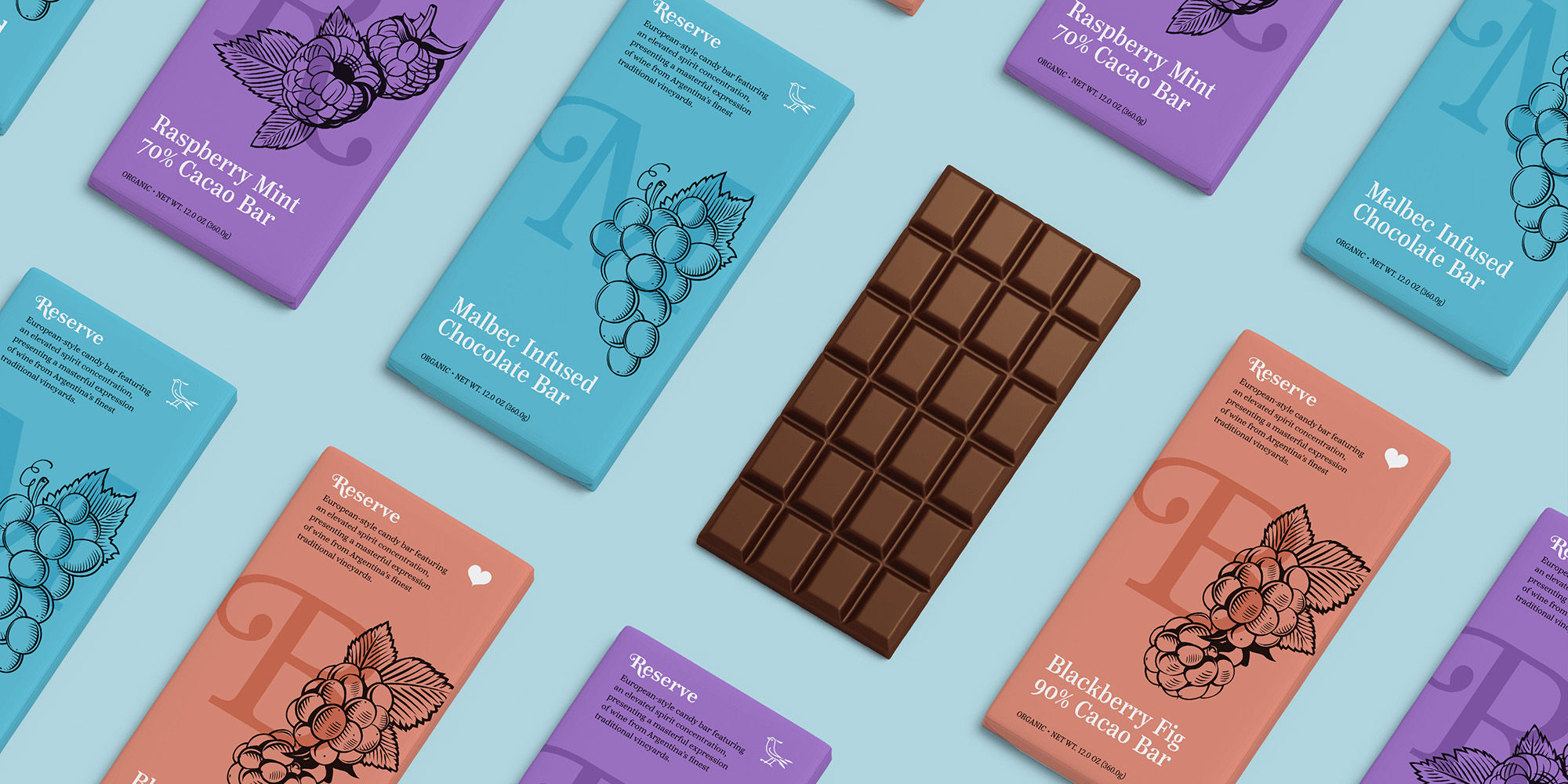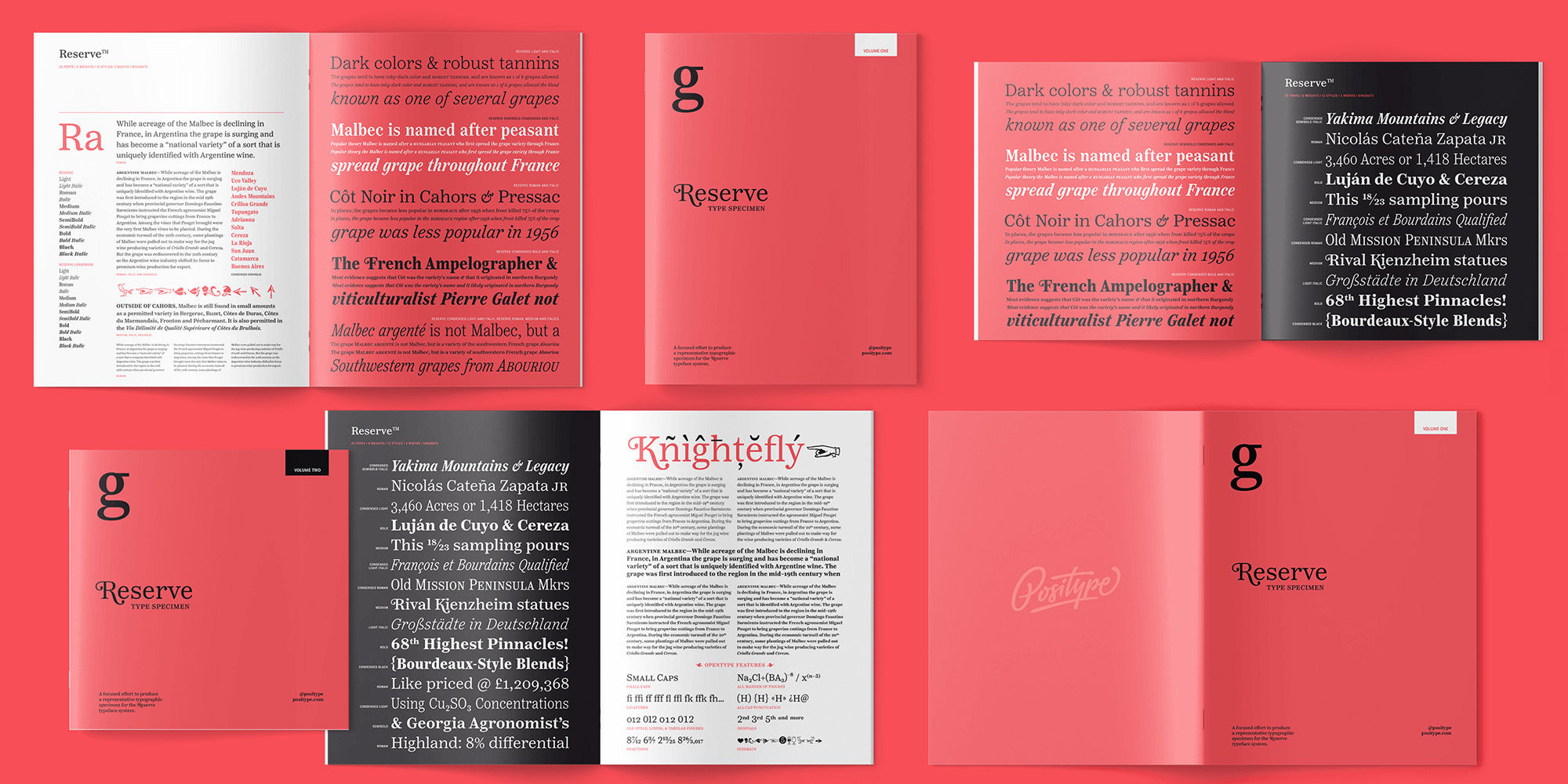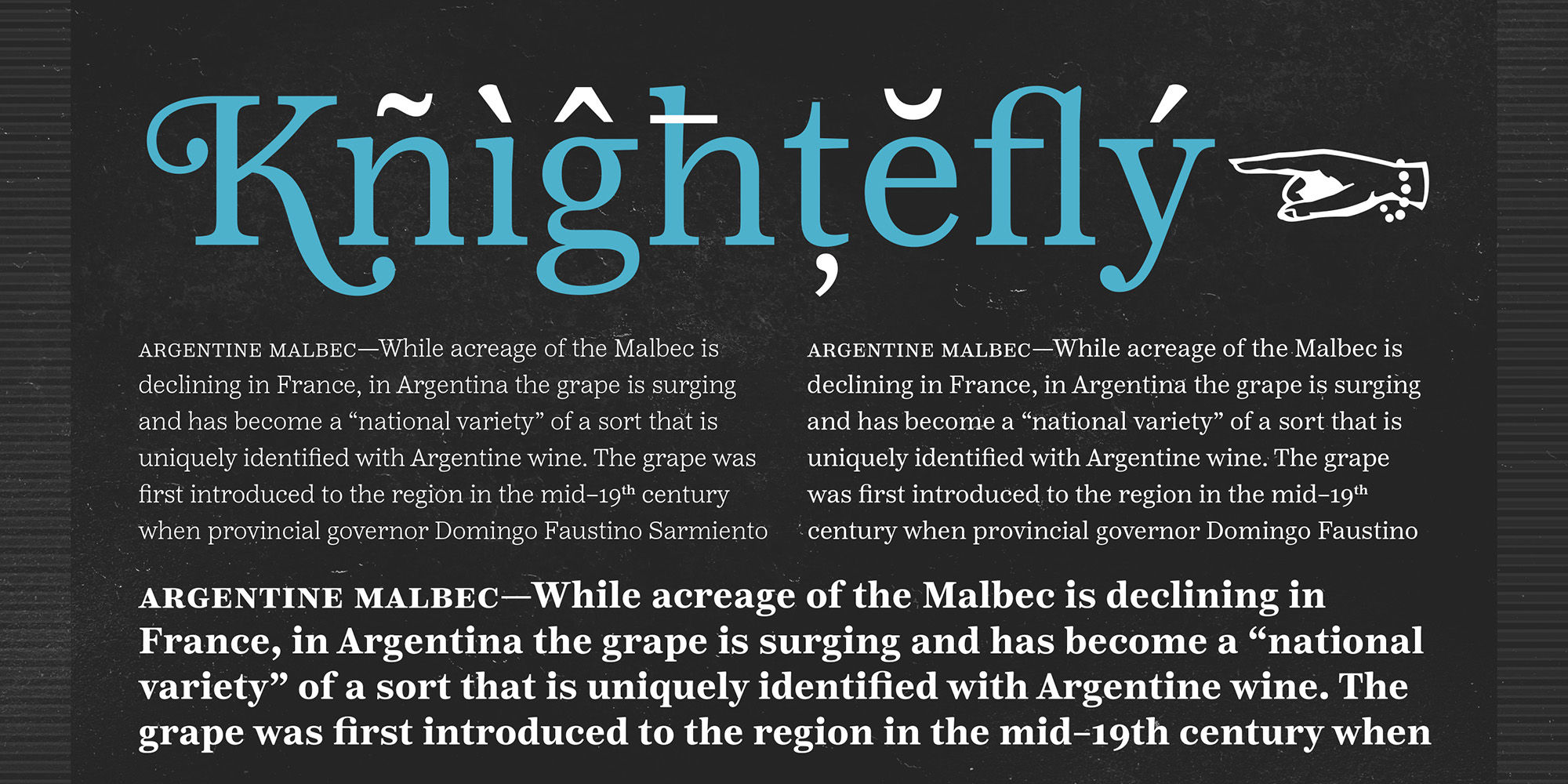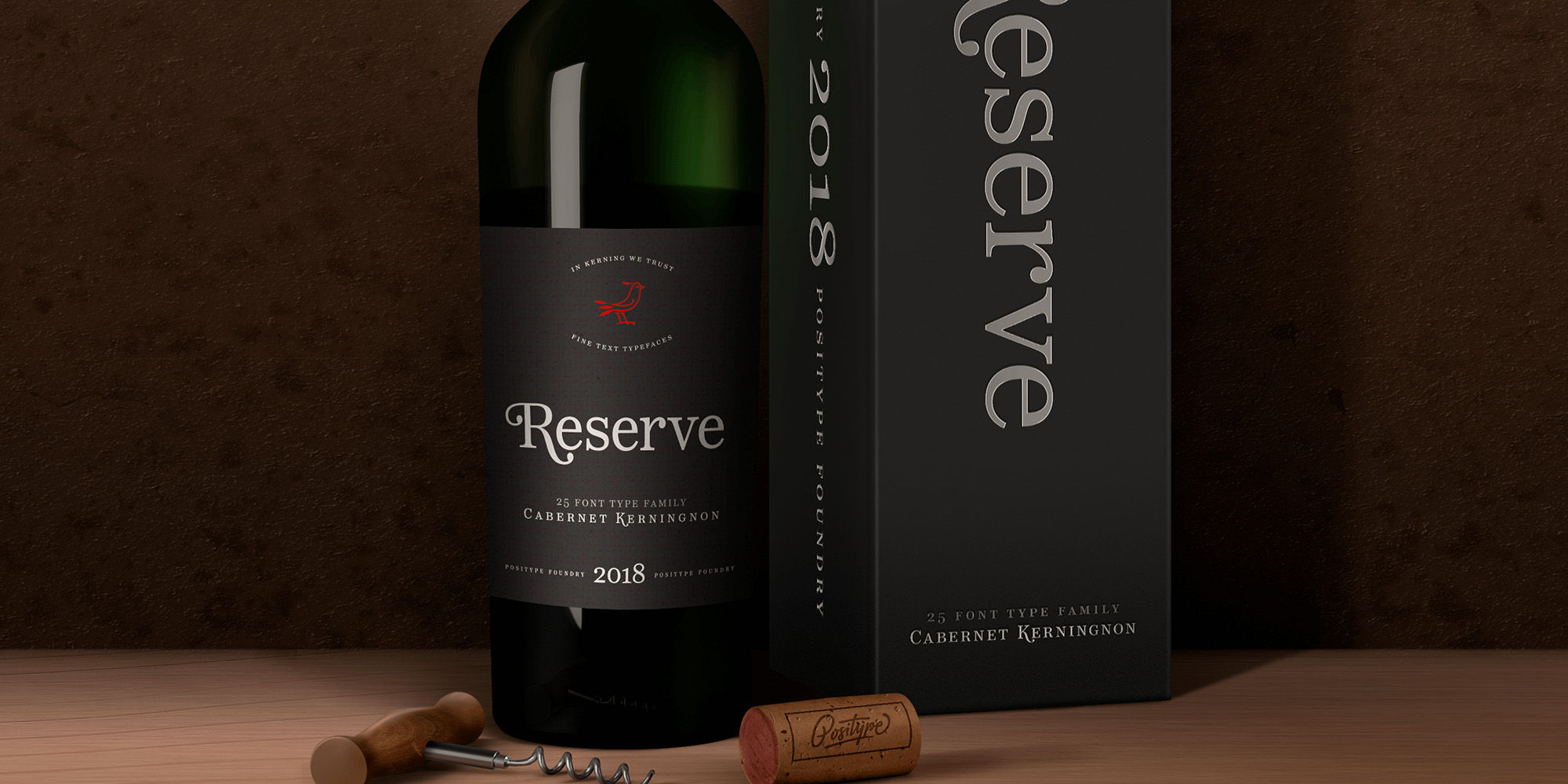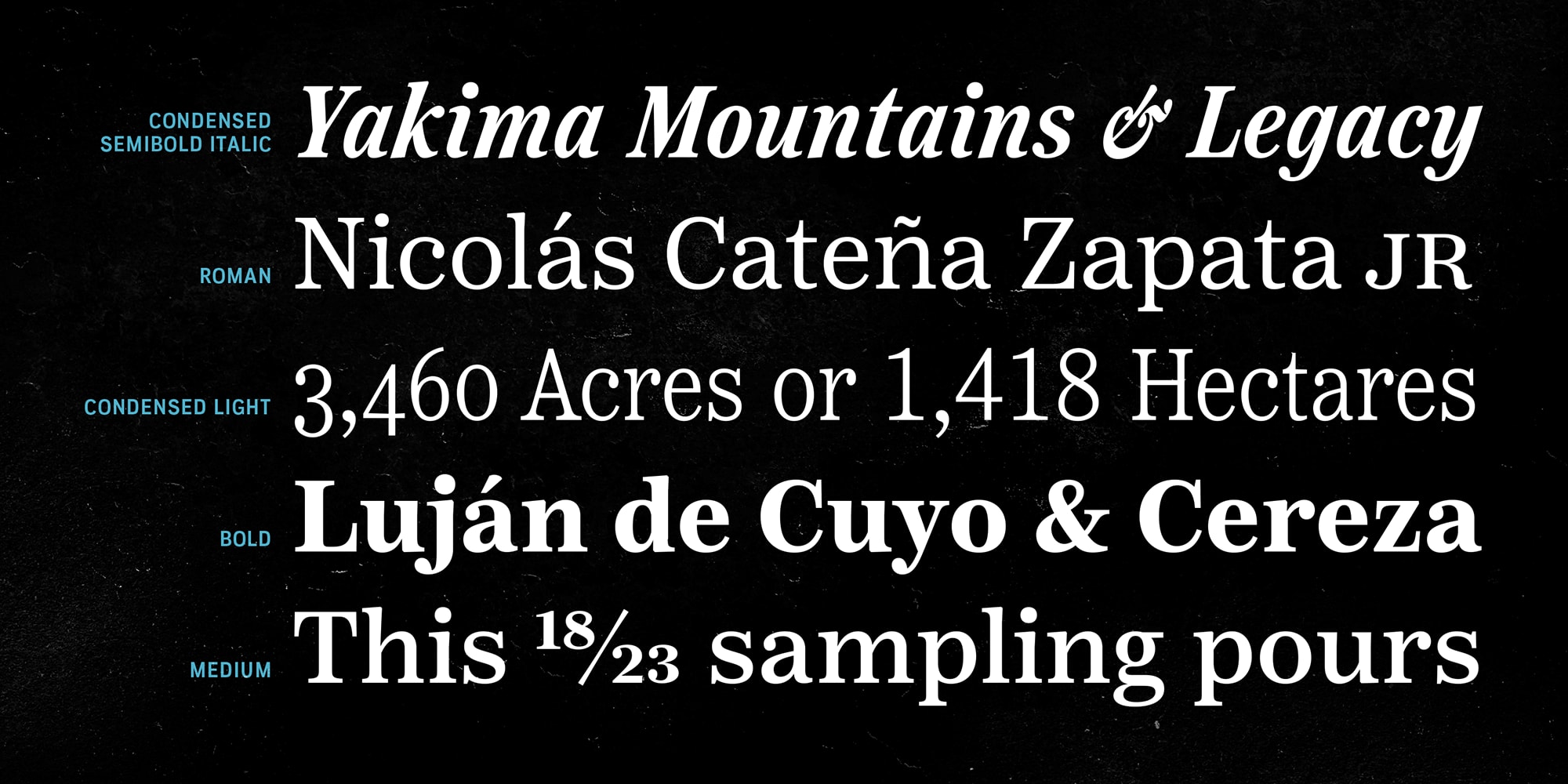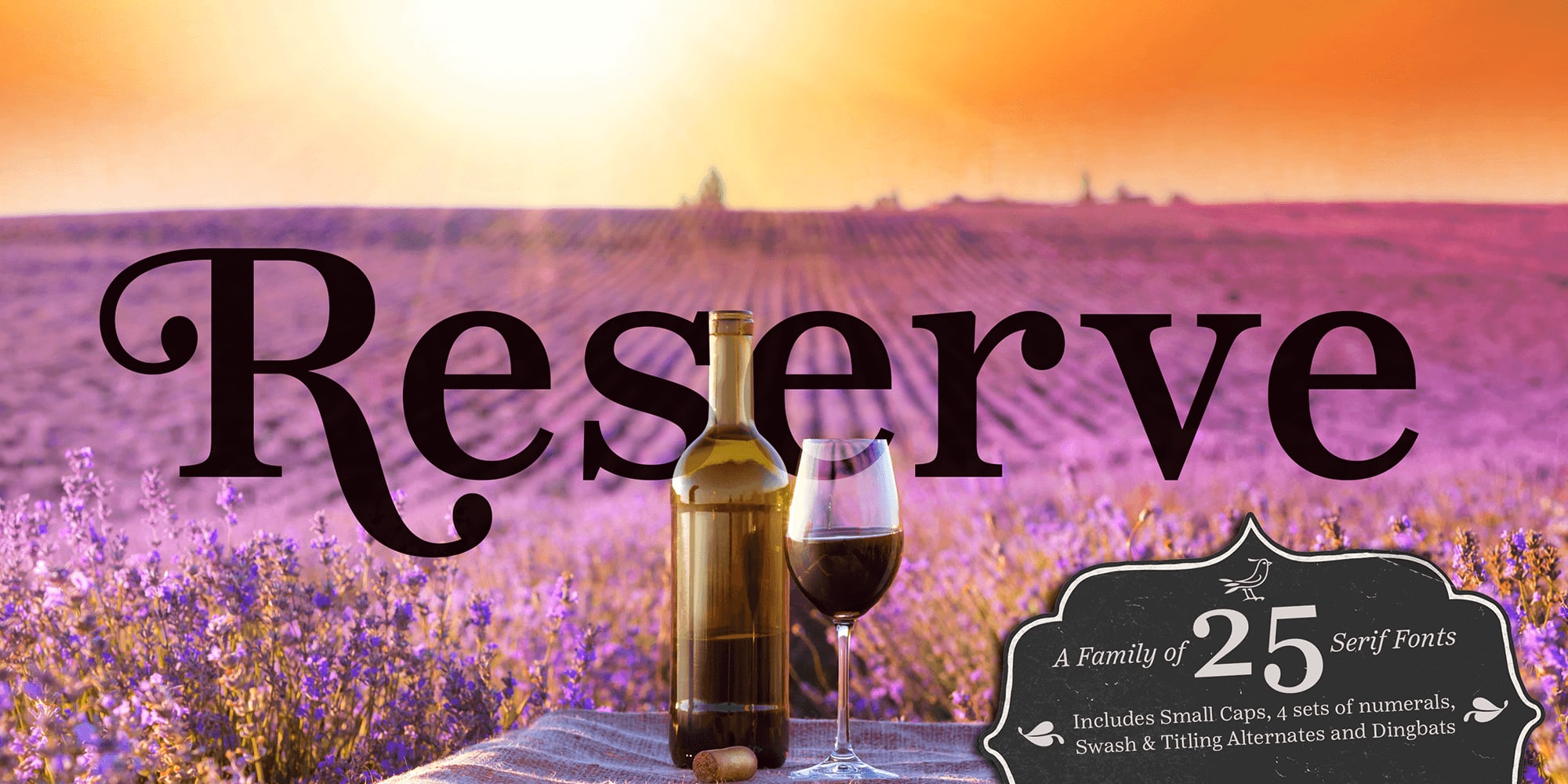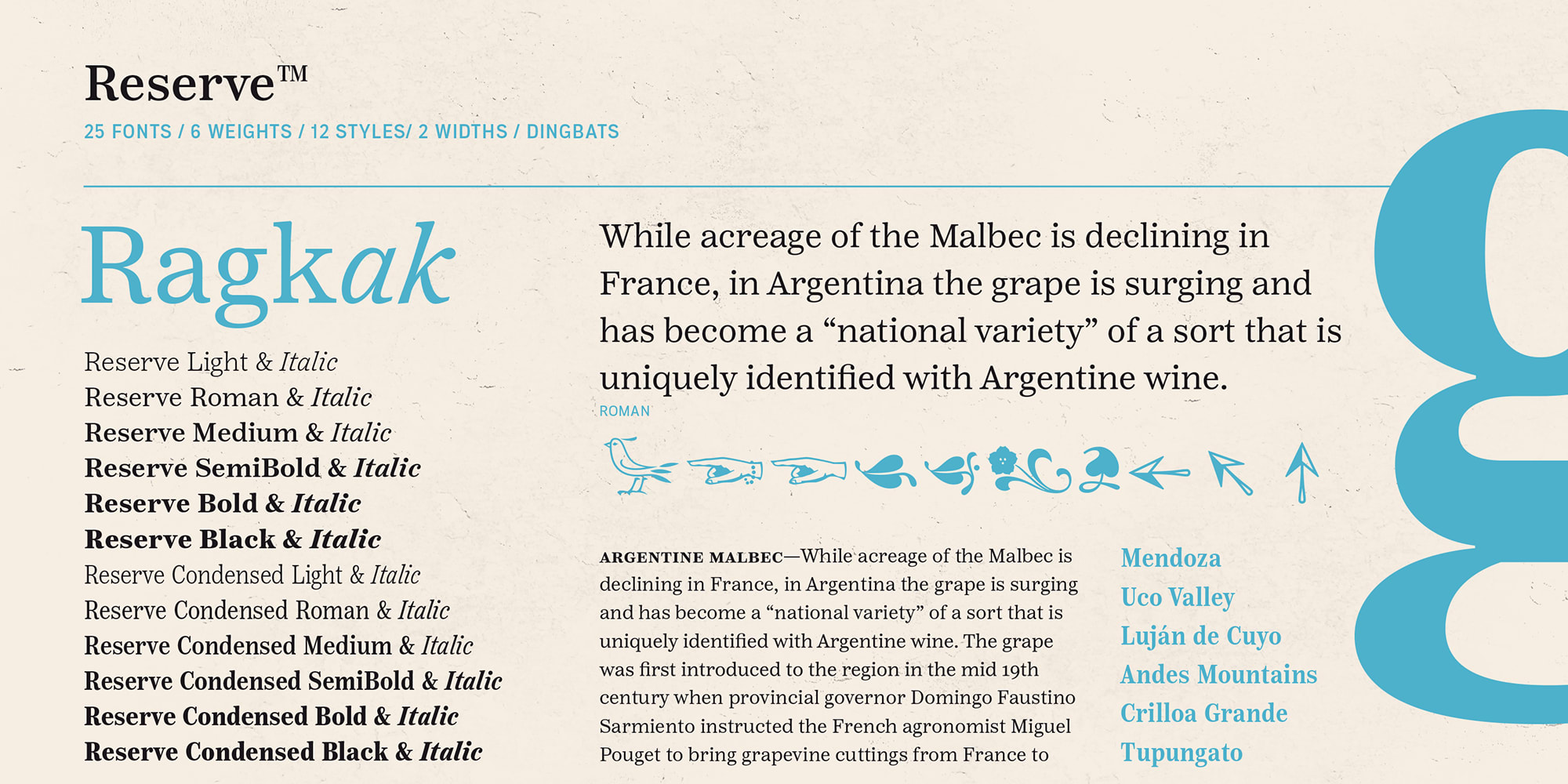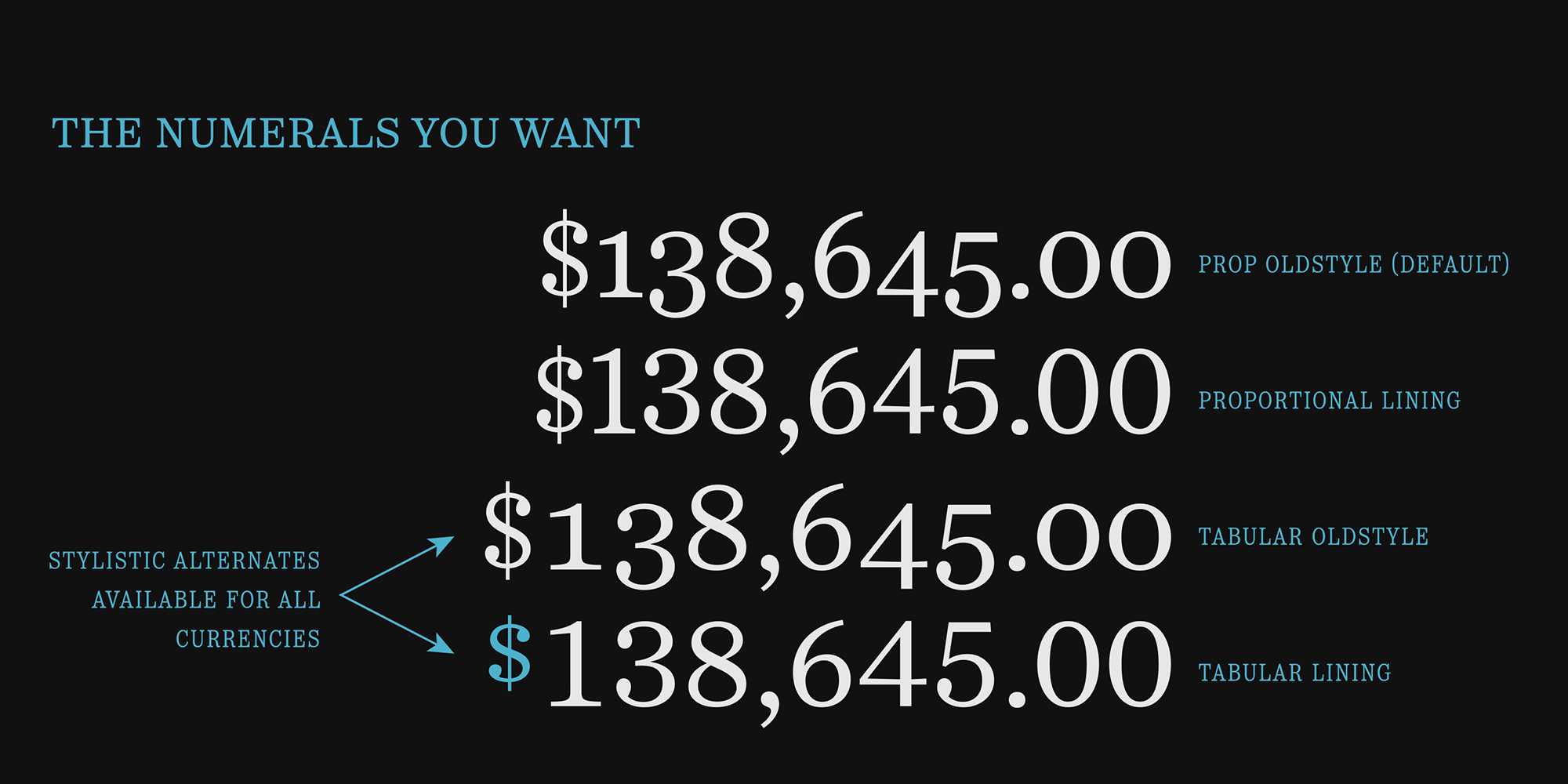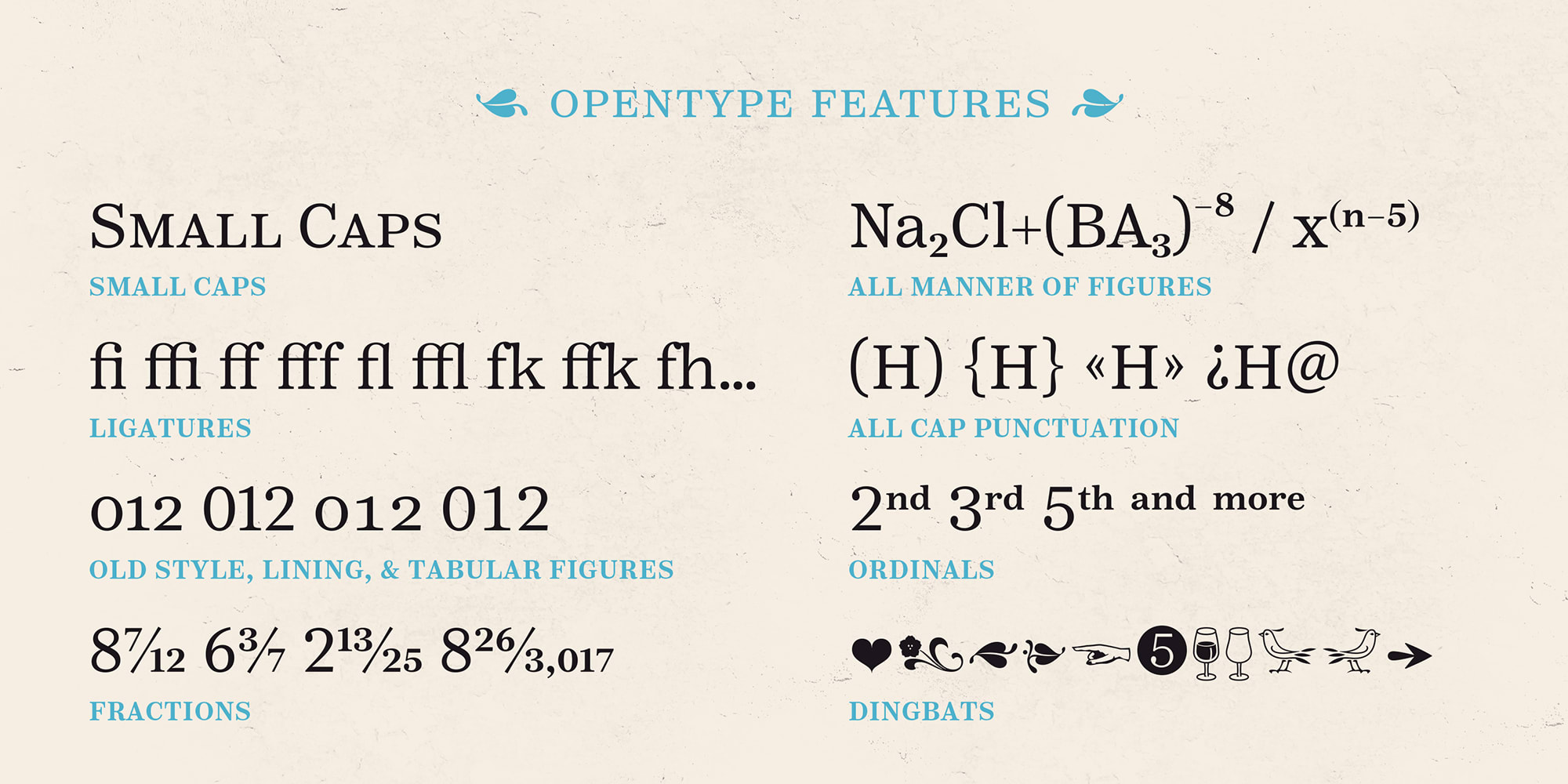
Reserve
Styles:13
LightLight ItalicRomanItalicMediumMedium ItalicSemiBold ItalicBoldBold ItalicBlackBlack ItalicDingbats
Swashswsh
Titling Alternatestitl
Small Capssmcp
Fractionsfrac
Superscriptsups
Scientific Inferiorssinf
Ordinalsordn
Case-Sensitive Formscase
Oldstyle Numeralsonum
Tabular Numeralstnum
Stylistic Set 1ss01
First and foremost, Reserve is a companion typeface developed to complement the Scotch Suite of typefaces.
With a focus on producing simpler forms with less contrast, Reserve evolved into a fantastic serif typeface for long-form text settings, exceptional clarity at low resolutions—for print and screen. Friendly and functional, Reserve is replete with features intended to make you feel comfortable going back to again and again, and with a complete set of condensed fonts, this typeface becomes more of a surprise.
Small Caps, 4 sets of numerals, Case-Sensitive forms, Stylistic, Swash and Titling Alternates, Fractions, language support, and more… it’s all there, ready for you to use. The term ‘Reserve’ as it applies to the words of wine and spirits is typically used to alert a consumer of a higher quality, exceptional vintage, or special production of wine or whisky… it’s no different for this typeface’s name. Cheers.